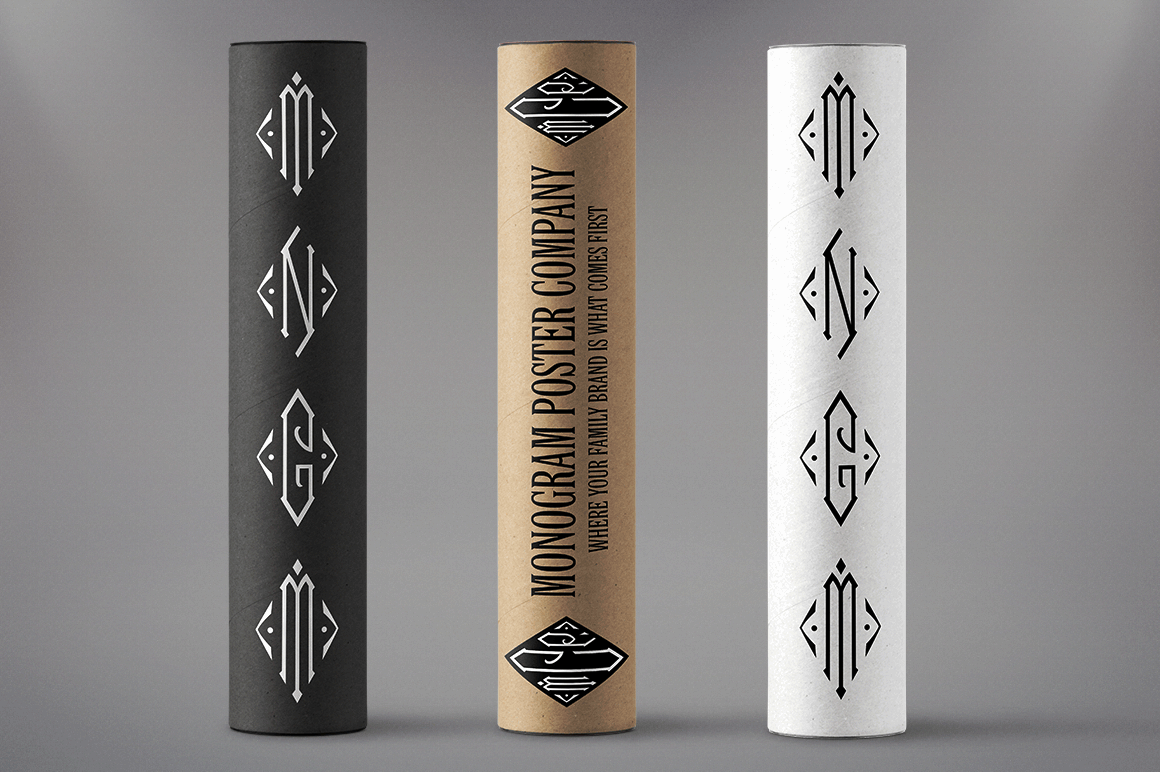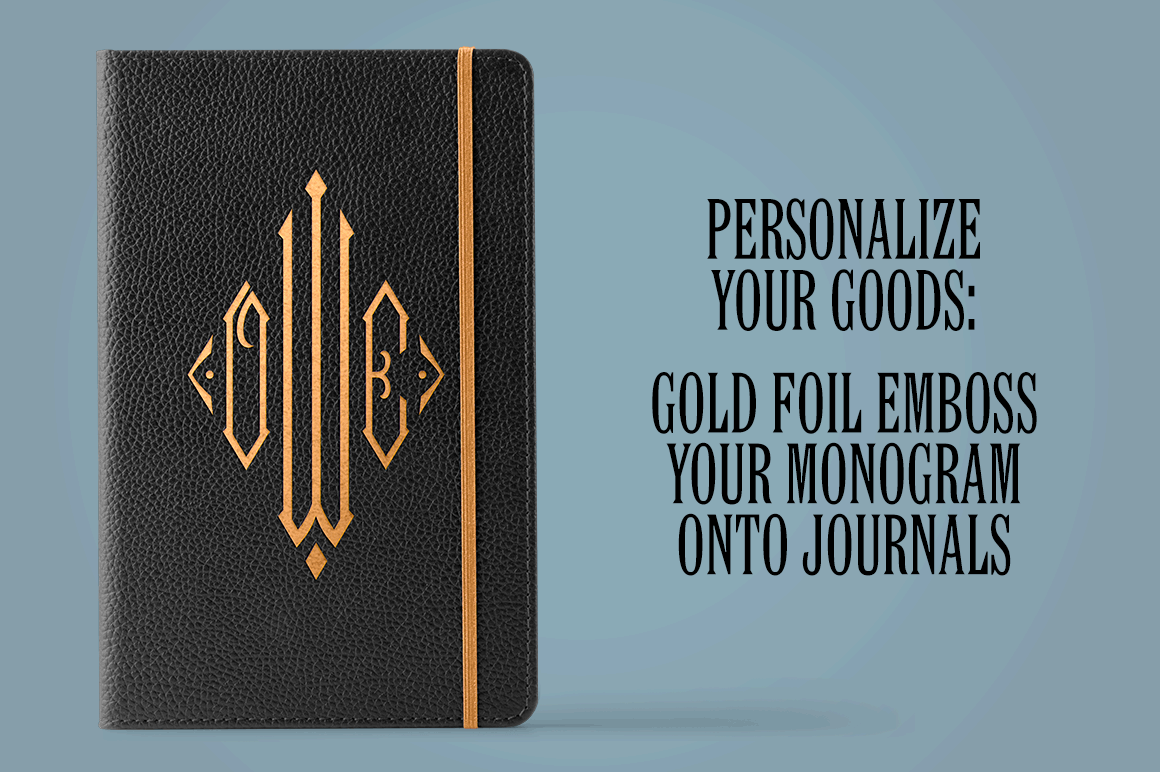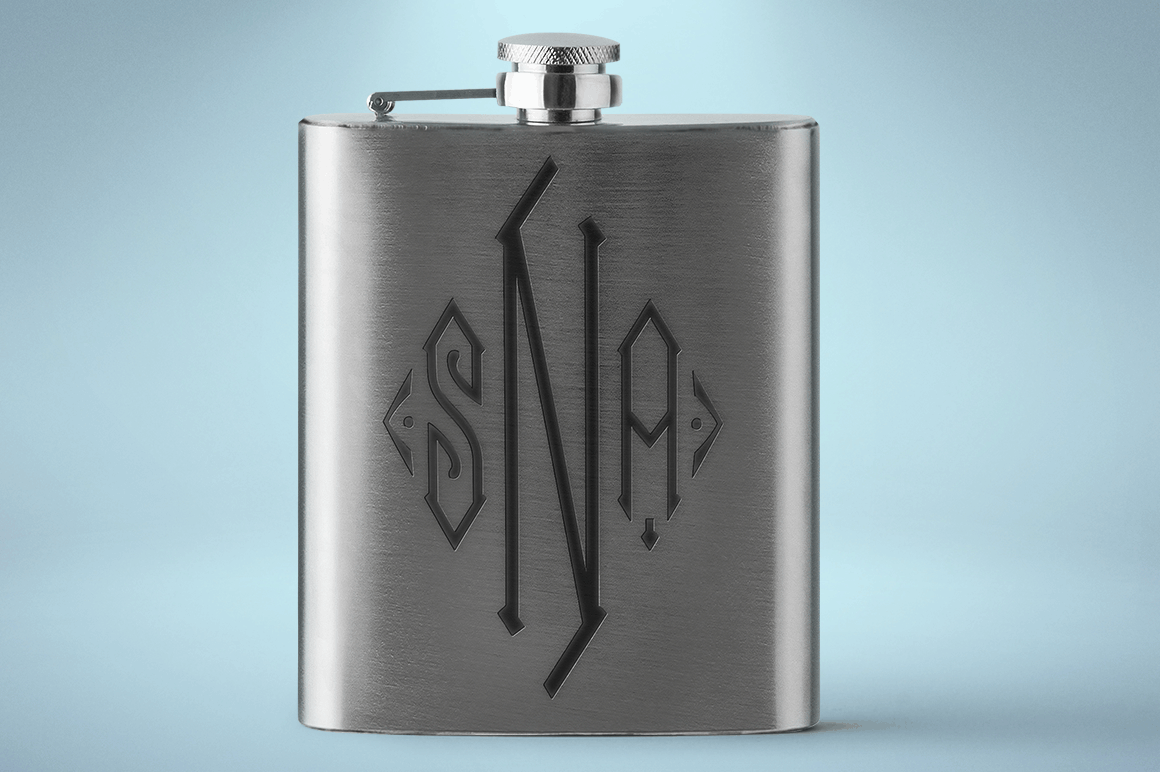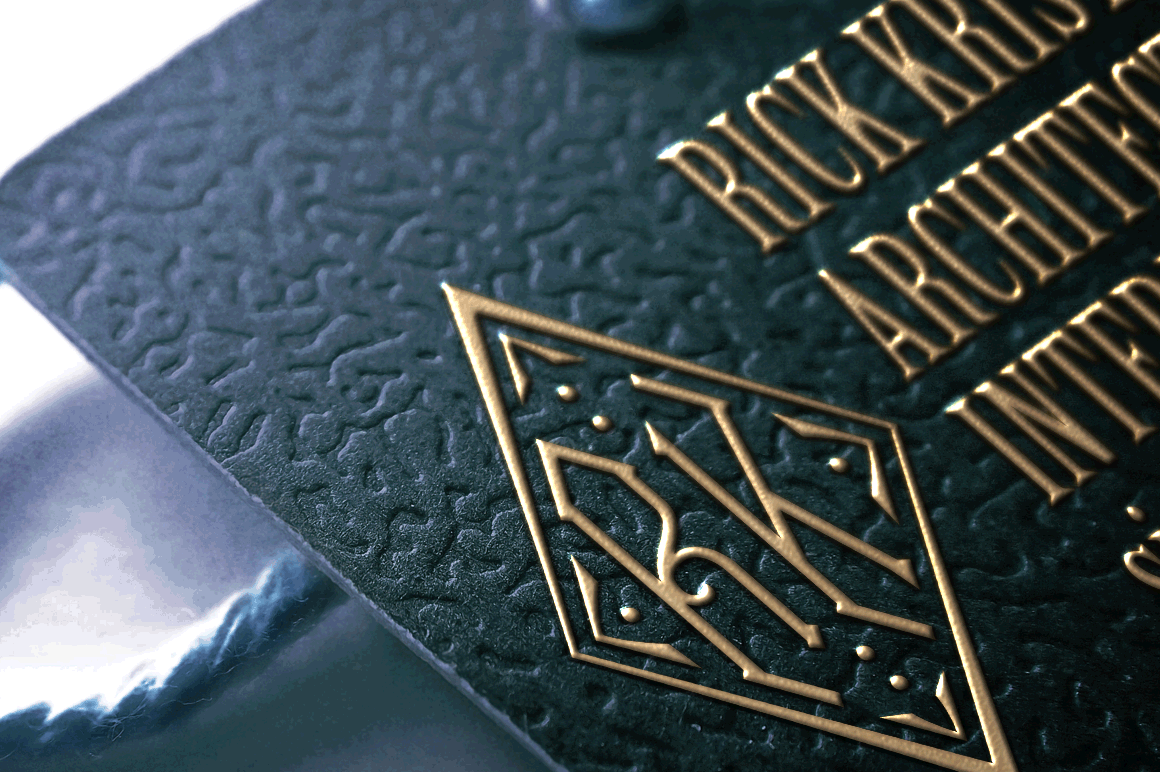
About MFC Diamerrick Monograms
The source of inspiration for MFC Diamerrick Monogram is a vintage pre-1930\’s diamond shaped initial monogram style by Butterick Transfers. We\’ve not only recreated the original styling, but further developed it into a 3-letter diamond monogram format…